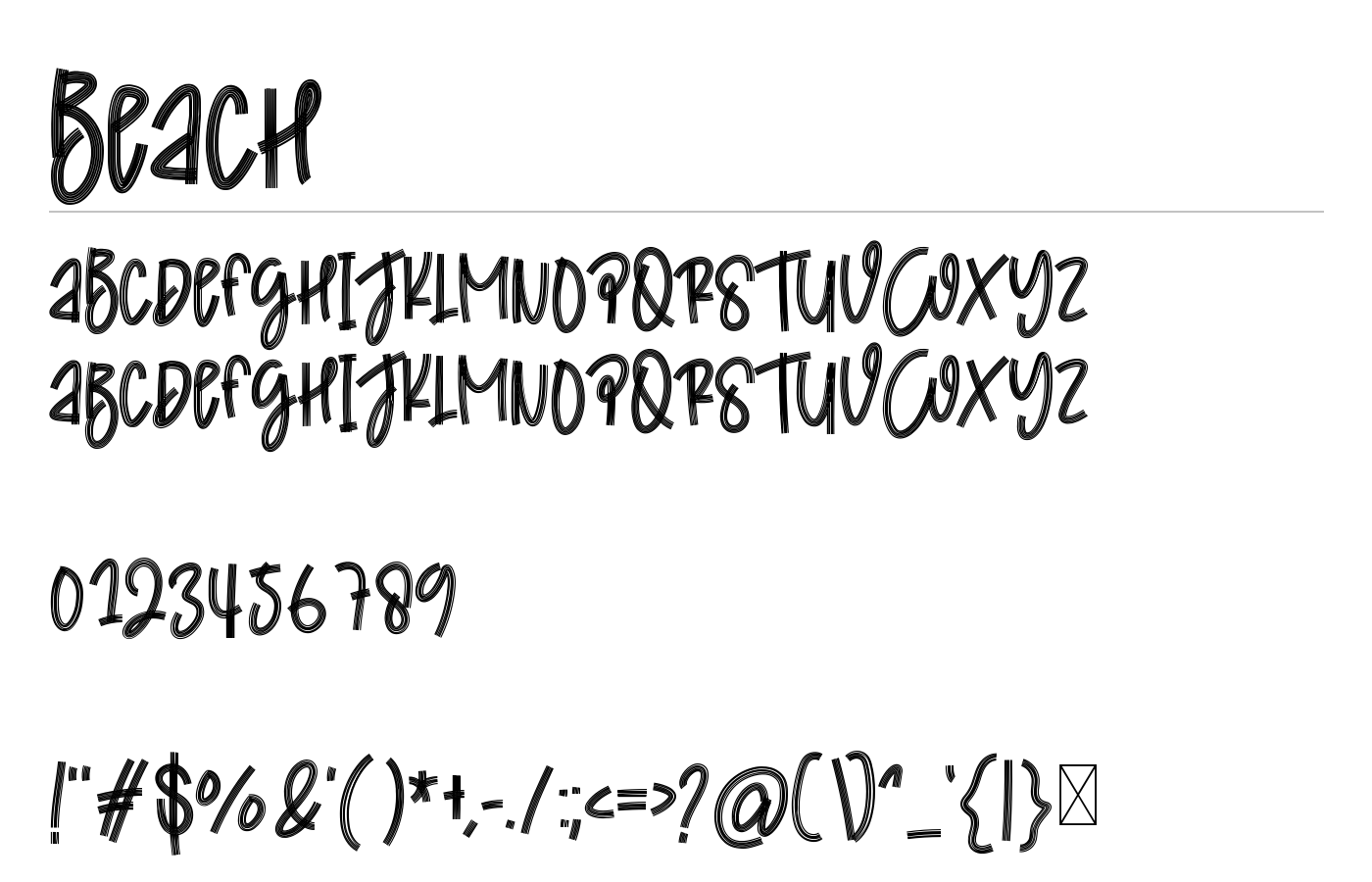
Beach Font is a playful and informal handwritten typeface with a casual, layered stroke style that gives it a textured, beachy vibe. Its tall, narrow letterforms combined with quirky curves and unique character shapes make it ideal for fun, creative projects like logos, posters, or packaging that want to convey a relaxed, friendly atmosphere.
Beach Font